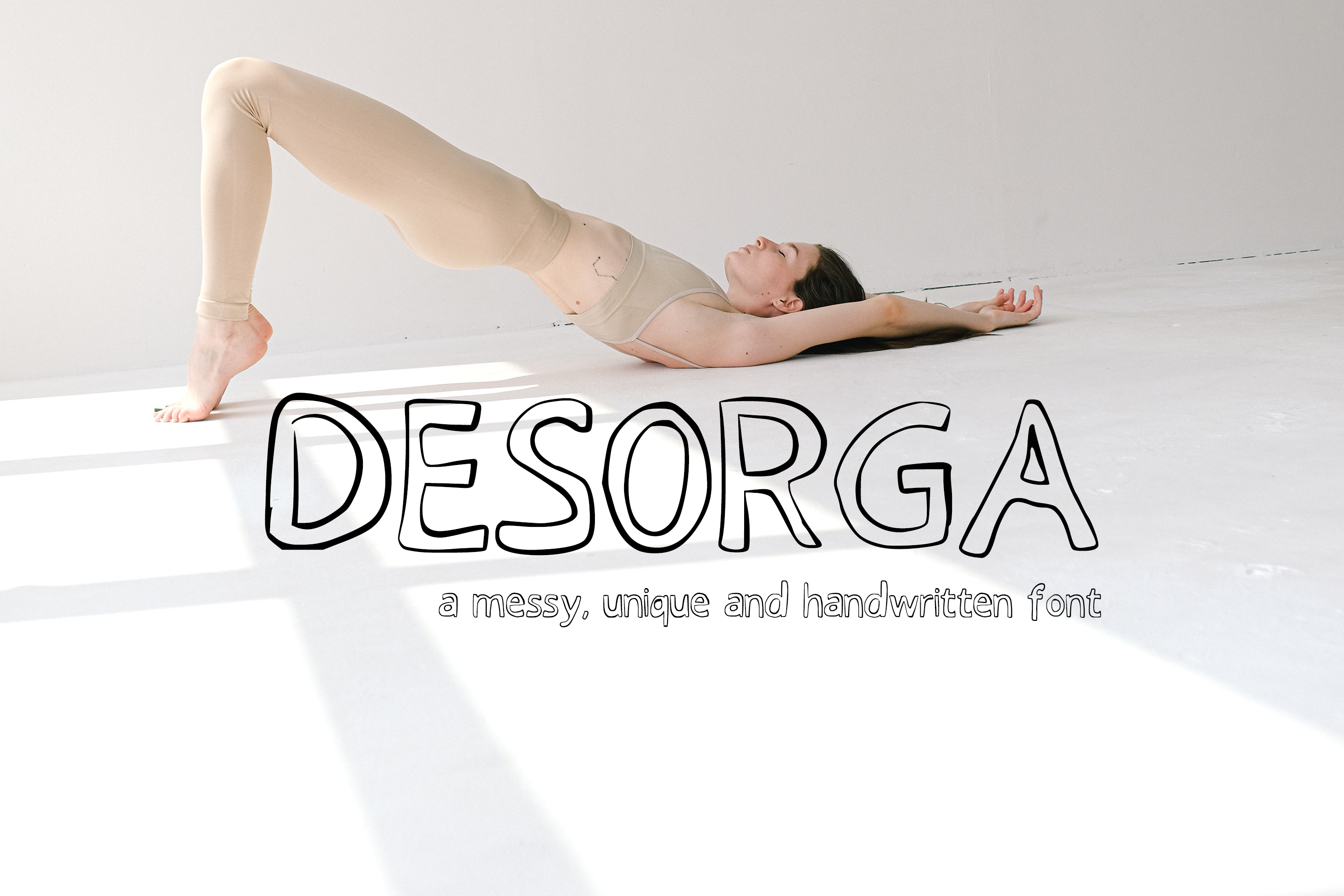
Desorga Font: Embrace the Chaos
- sans serif, handwritten, unique
- outlined and visually interesting style
- over 190 characters
- supports many languages, for example German, Italian, Spanish, Dutch, and English
- contains glyphs for the alphabet, numeric glyphs, punctation and many special characters
- can be used in marketing material, logo design, web graphics, posters and other projects.
Wanna know more? Would you like to make a statement with your typography? Look no further than Desorga, a font designed to captivate and leave a lasting impression on your creative projects. This sans serif typeface combines the charm of handwritten script with an irresistibly messy style, resulting in a truly one-of-a-kind font that will make your designs stand out from the crowd.
Desorga supports a wide range of languages, allowing you to communicate your message effectively in German, Italian, Spanish, Dutch, English, and beyond. From marketing materials to logo design, web graphics to posters, this font is the perfect companion for bringing your ideas to life. With over 190 characters at your disposal, including alphabet glyphs, numeric glyphs, punctuation marks, and special characters, you'll have the freedom to add those perfect finishing touches to your designs.
The allure of Desorga lies in its ability to embrace chaos while maintaining an underlying order. Its outlined and visually interesting style adds a touch of intrigue to any project, creating a captivating visual experience. Whether you're aiming for a modern and edgy look or a whimsical and playful aesthetic, Desorga effortlessly adapts to your creative vision.
Integrate Desorga into your design workflow and unlock its transformative power. Whether you're crafting marketing materials, designing web graphics, or exploring other creative endeavors, Desorga will be your trusted companion. This font's versatility and compatibility with popular design software ensure a seamless and enjoyable typographic experience. Embrace the beauty of imperfection and the allure of a personal touch as Desorga adds depth and character to your designs.